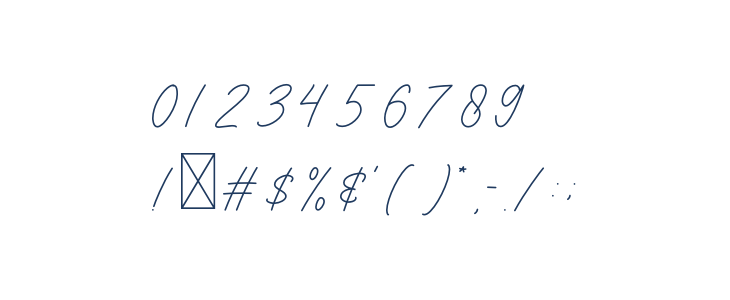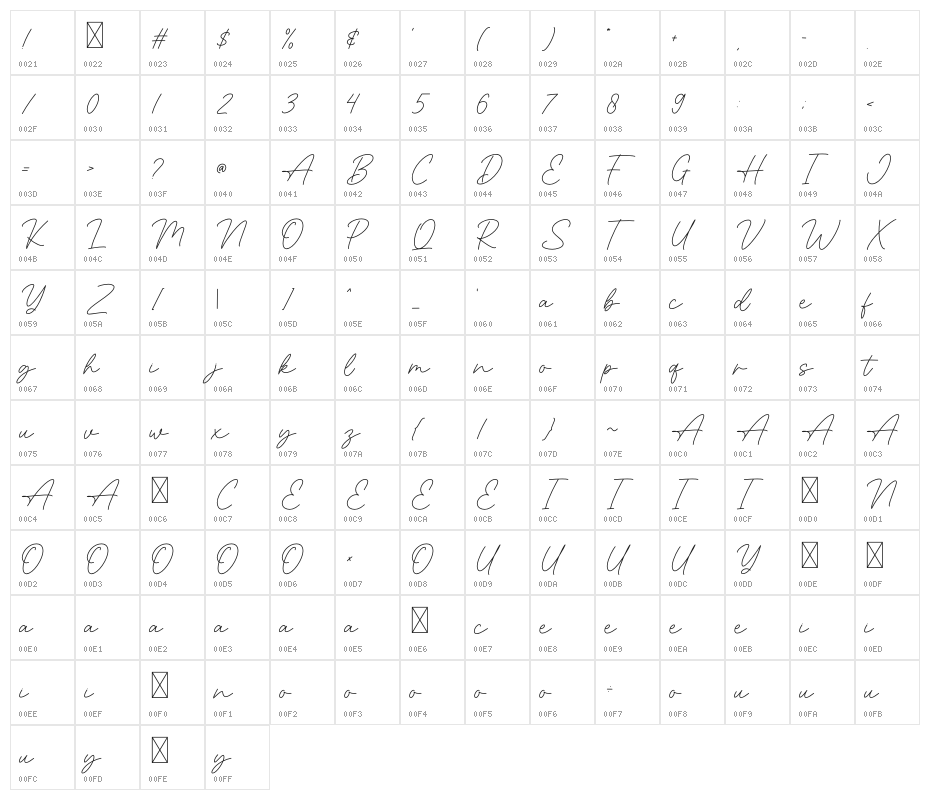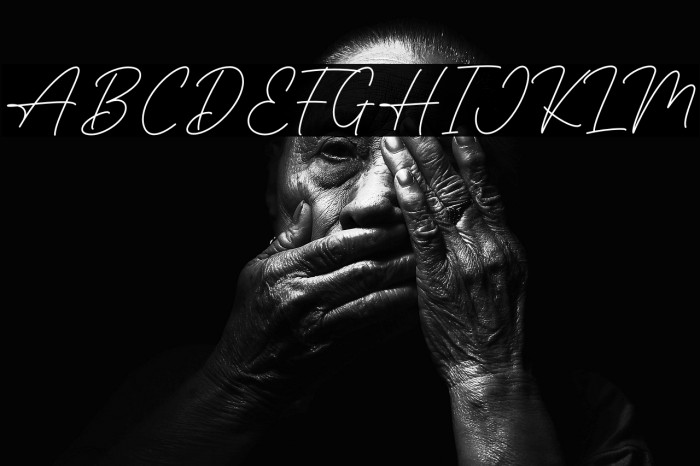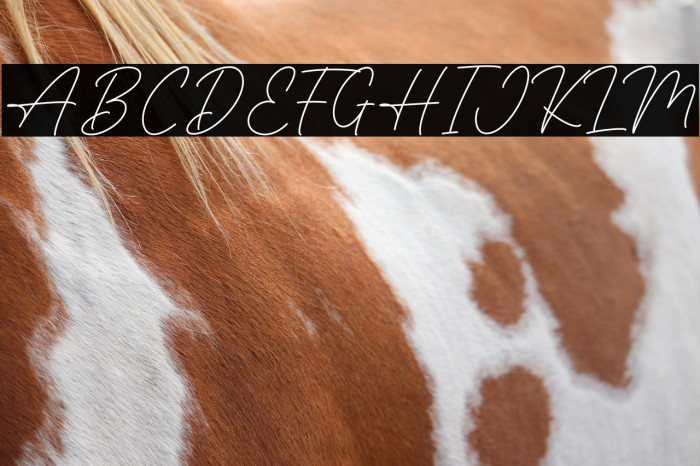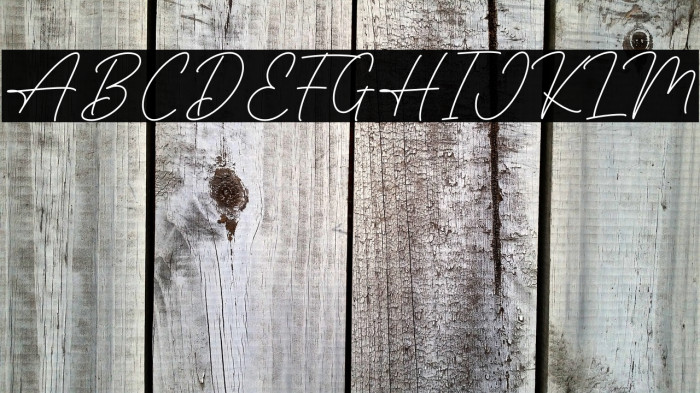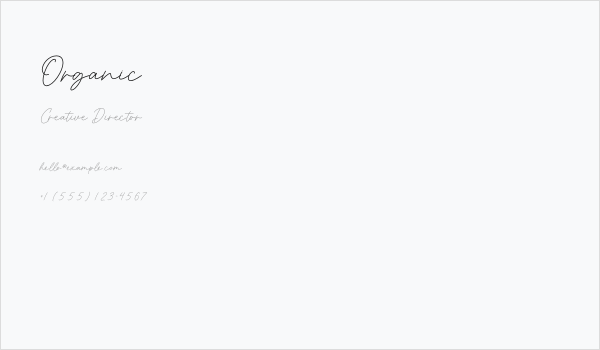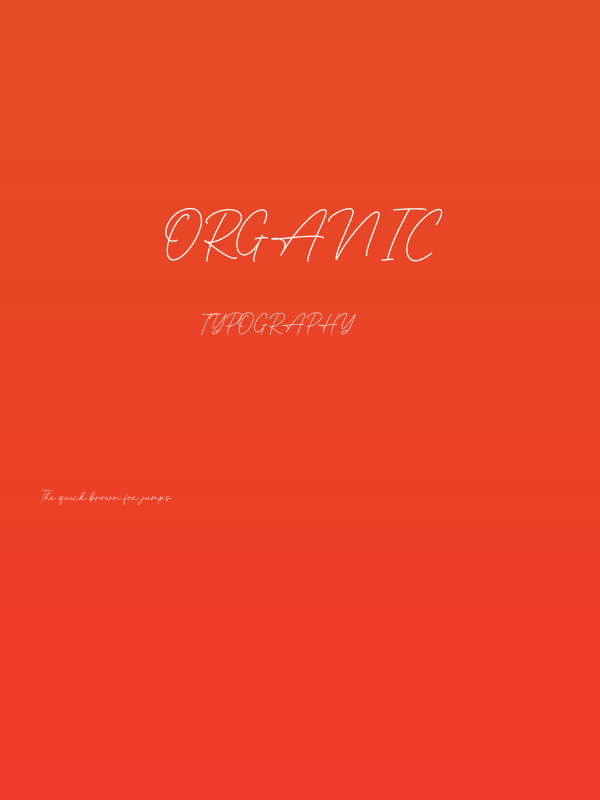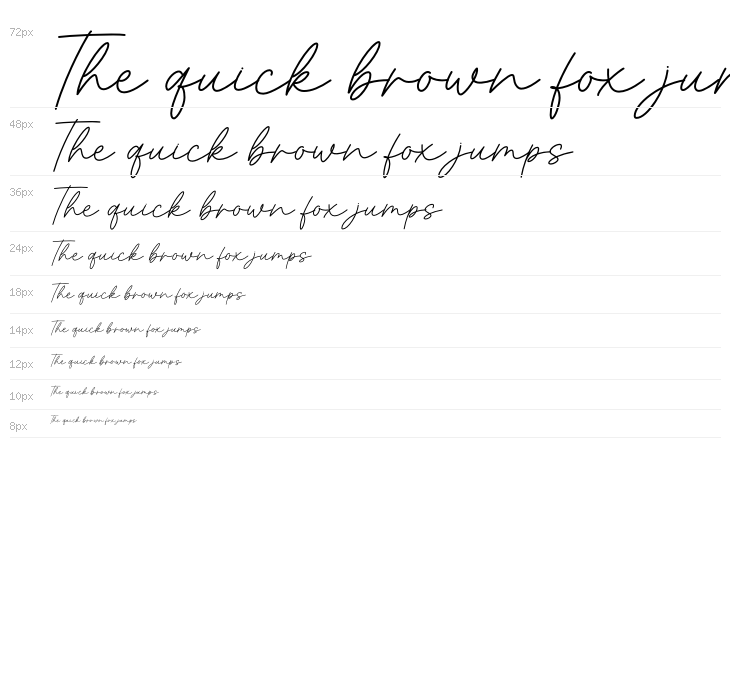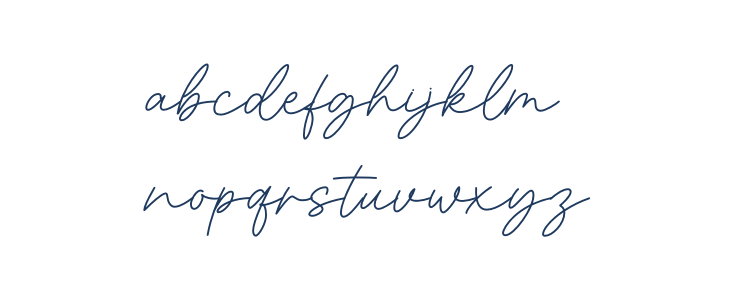
Organic Font
Organic Description
This elegant script font features a flowing, cursive style that mimics natural handwriting. The letters are connected in a fluid manner, creating a sense of continuity and grace. The uppercase letters are slightly larger and more pronounced, while the lowercase letters maintain a consistent height, enhancing readability. The numbers and special characters are designed to complement the letters, maintaining the same fluidity and elegance. This font is perfect for projects that require a personal touch, such as invitations, greeting cards, or branding materials. Its delicate strokes and balanced proportions make it suitable for both digital and print media.
| Use Case | Headlines, Invitations, Branding |
| Proposed Projects | Ideal for wedding invitations, personal branding, greeting cards, and elegant packaging. |